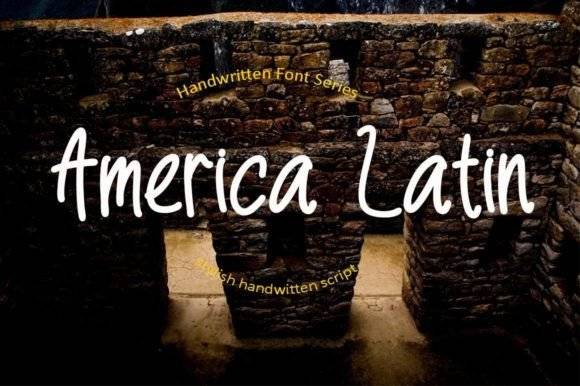
America Latin Font for Headlines, Posters and Branding Projects
America Latin is a striking serif typeface built for designers who need strong, culturally inspired headline fonts. With its retro elegance and bold Latin script influence, it brings authority and flair to branding, editorial layouts, and posters. Its distinct character and unique personality make it an excellent choice for various design applications. Additionally, the arizonia font for branding projects complements America Latin perfectly, offering a harmonious blend of style and versatility. Together, they create a visually striking narrative that captivates audiences and enhances the overall aesthetic of any creative endeavor.
This font entity is structured for readability and visual appeal, making it ideal for titles, promotional artwork, and logo elements. Whether printed or on screen, it commands attention and communicates heritage and sophistication. Additionally, the design seamlessly integrates with various graphic styles, enhancing the overall aesthetic without overwhelming other elements. Amora font features and benefits include its versatility for both modern and traditional applications, making it a valuable choice for branding projects. Its distinctive character set ensures that each letter stands out, providing clarity and identity in diverse contexts. Its unique design captures the essence of creativity, allowing it to stand out in any context. Designers often seek out an animals font for creative projects to evoke emotion and connection, making their work even more impactful. This versatility enhances branding efforts, ensuring that visual communications are both memorable and engaging.
From billboard designs to luxury packaging, America Latin lends a distinctive, classical voice to your brand or campaign.
- Large-scale posters and advertisements
- Headline banners and typographic covers
- Branding packages and logo suites
- Event flyers and product packaging
- Editorial spreads and magazine layouts
- Latin-inspired styling with modern usability
- High readability for headlines and print
- Perfect for heritage, culture, or luxury themes
- Delivers impact without sacrificing elegance
Q: What style is the America Latin font?
A: It’s a bold serif font inspired by Latin vintage typography, ideal for headlines and branding.
Q: Is it suitable for posters and large formats?
A: Yes, it’s optimized for bold display use in both digital and physical formats.
| Feature | America Latin | Santiago Serif | Vintage Roma |
| Font Style | Bold serif with Latin influence | Modern vintage serif | Classical Roman serif |
| Best Uses | Posters, branding, packaging | Editorial, book titles | Luxury labels, signage |
| Visual Strength | High - ideal for titles | Medium - editorial tone | High - formal and classic |